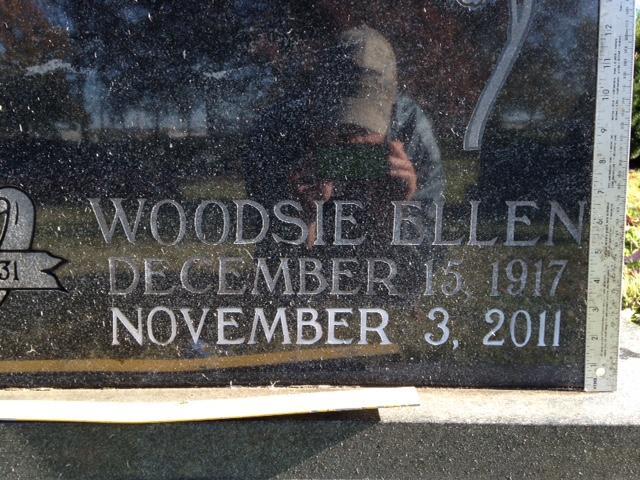
Font Help could you please tell me what this font is called if you can, Thanks
This is a font called Windsor. However, whoever added the date of death appears to have had trouble tracking down the font and matched it by hand–designing their own ‘3’ in the process.